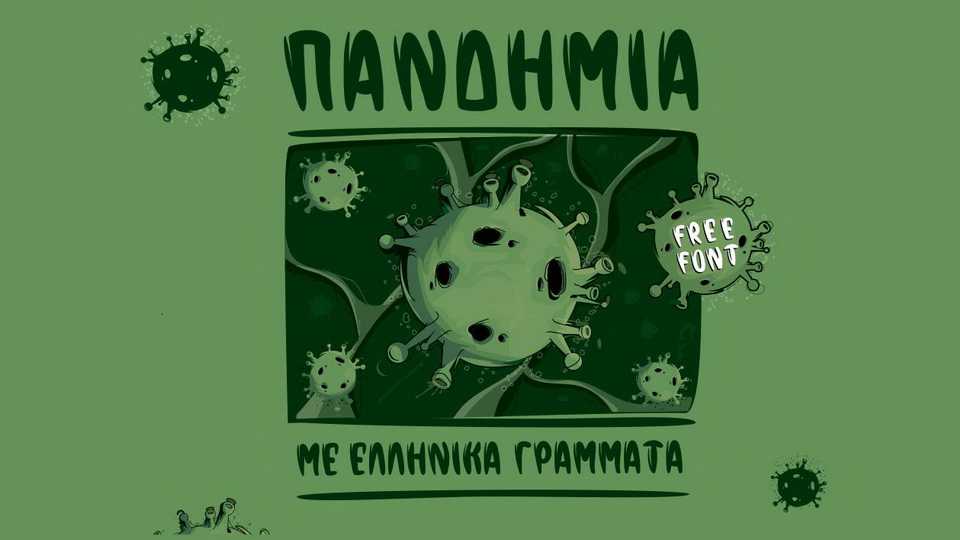
Download Pandemik font, a hand lettered display typeface. with Latin and Greek languages support. Pandemik font is best for posters, banners, headlines, t-shirt prints and other creative projects.
Designer: Under pressure